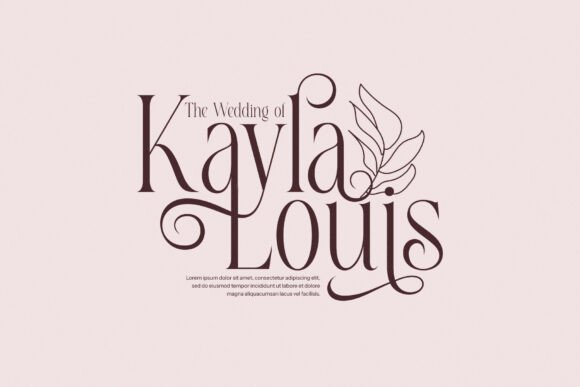
Healing Font
**Healing Elegant Serif Typeface Font** inspired by the famous minimalist logo perfect for the purposes of designing templates, brochures, videos, advertising branding, logos, invitations, layout design, elegant crafting, beauty design, and more.